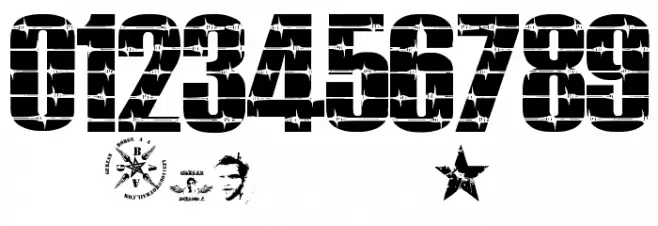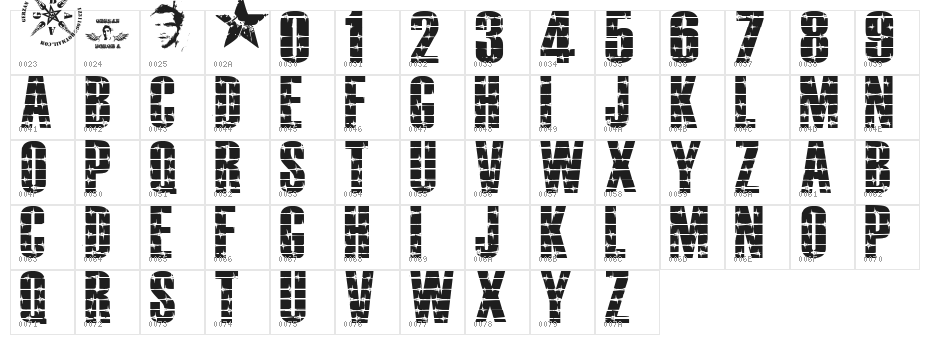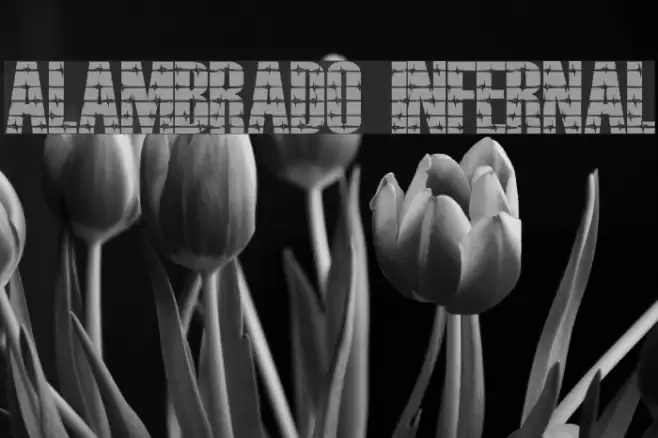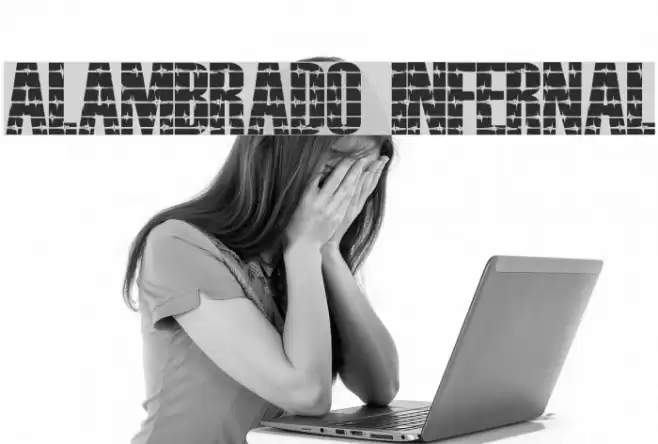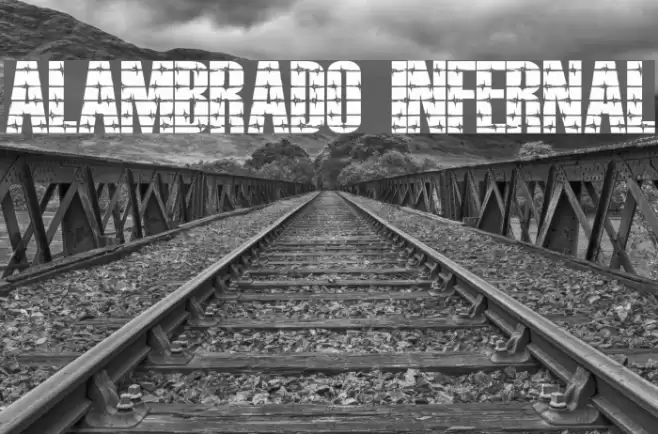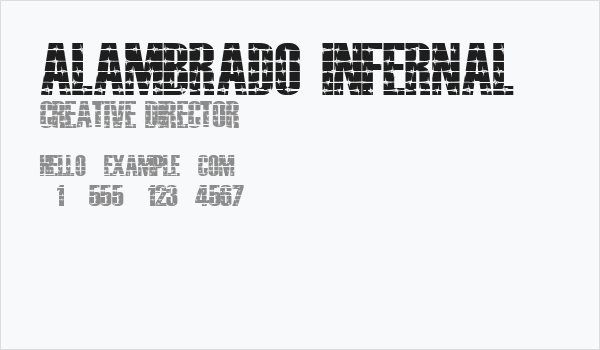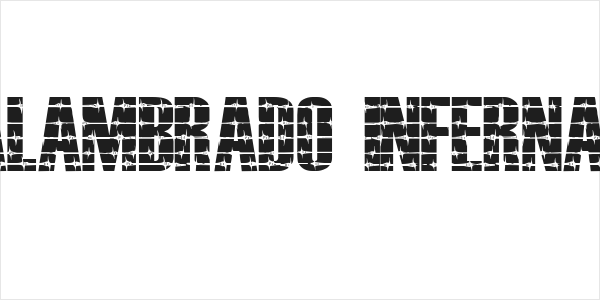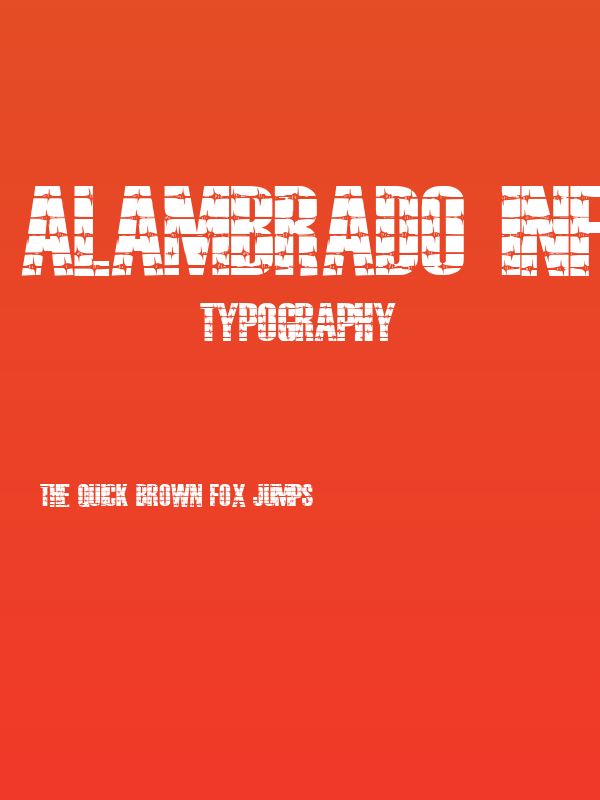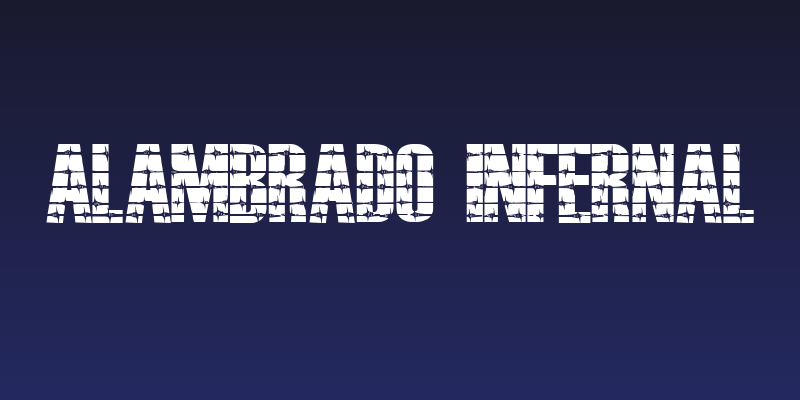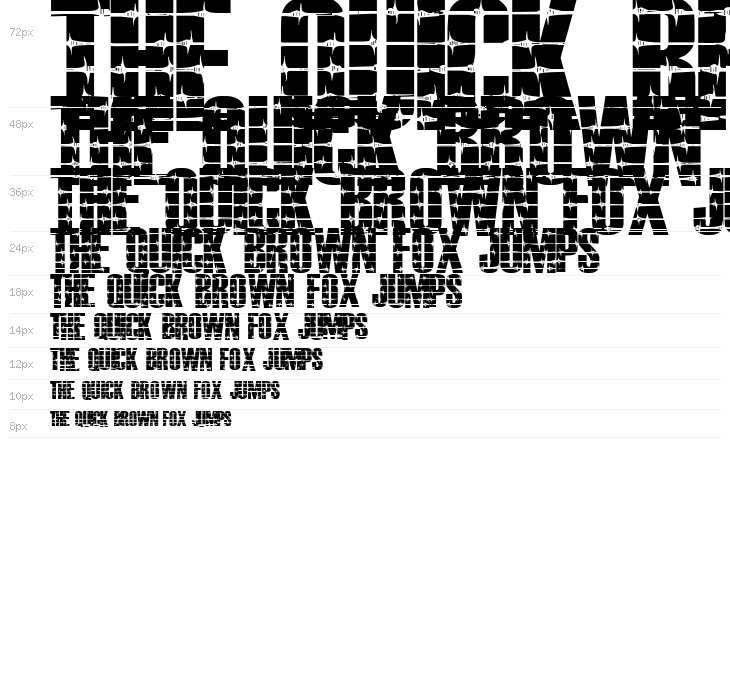
ALAMBRADO INFERNAL Font
ALAMBRADO INFERNAL Description
This font features a bold, distressed style with a barbed wire pattern running through each character, giving it a rugged and edgy appearance. The uppercase letters are prominent and impactful, making it suitable for attention-grabbing designs. The numbers and special characters maintain the same distressed aesthetic, ensuring consistency across all elements. The font's unique design is ideal for projects that require a strong, rebellious, or industrial feel.
| Proposed Projects | Ideal for posters, album covers, event flyers, or branding that requires a bold and rebellious aesthetic. |